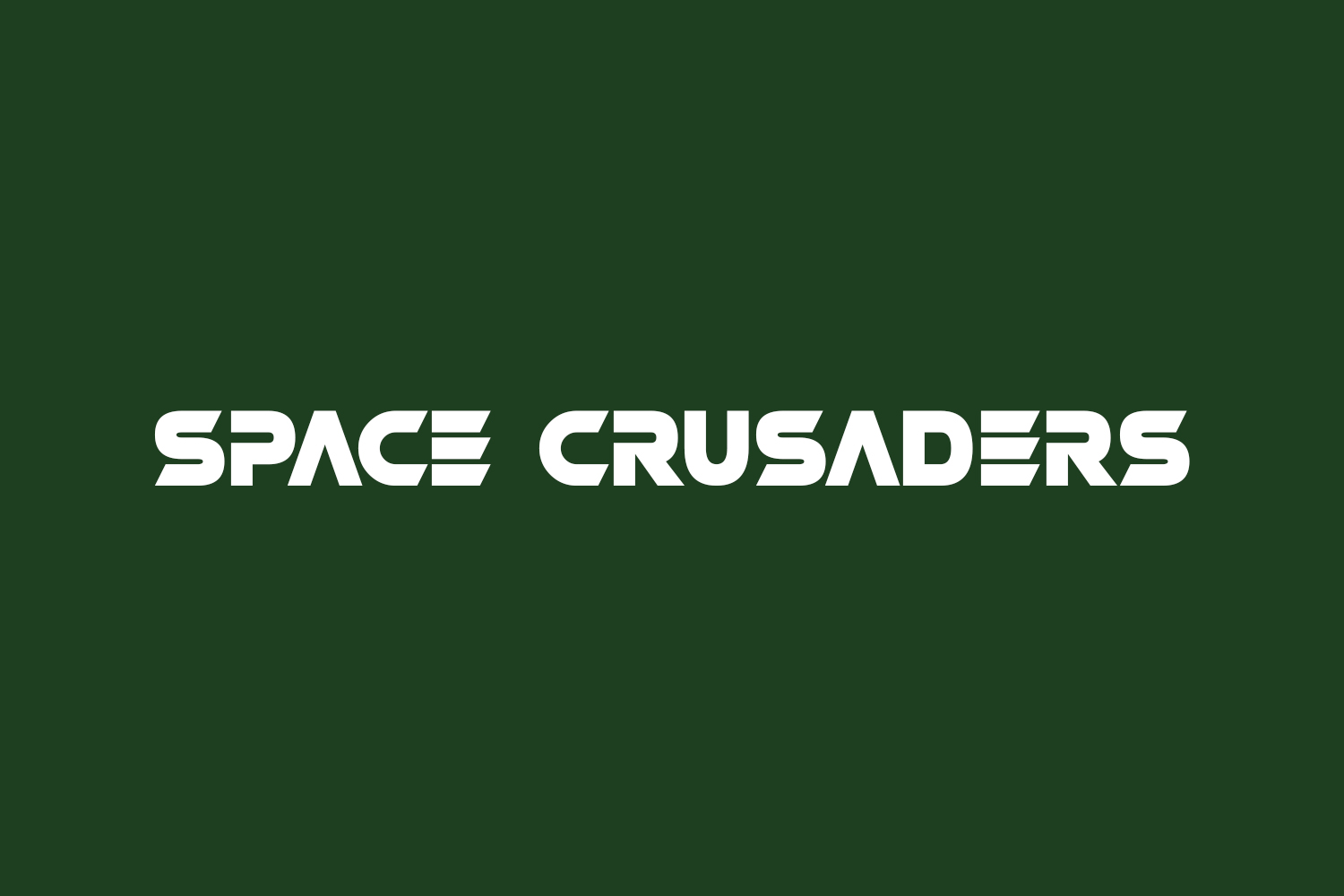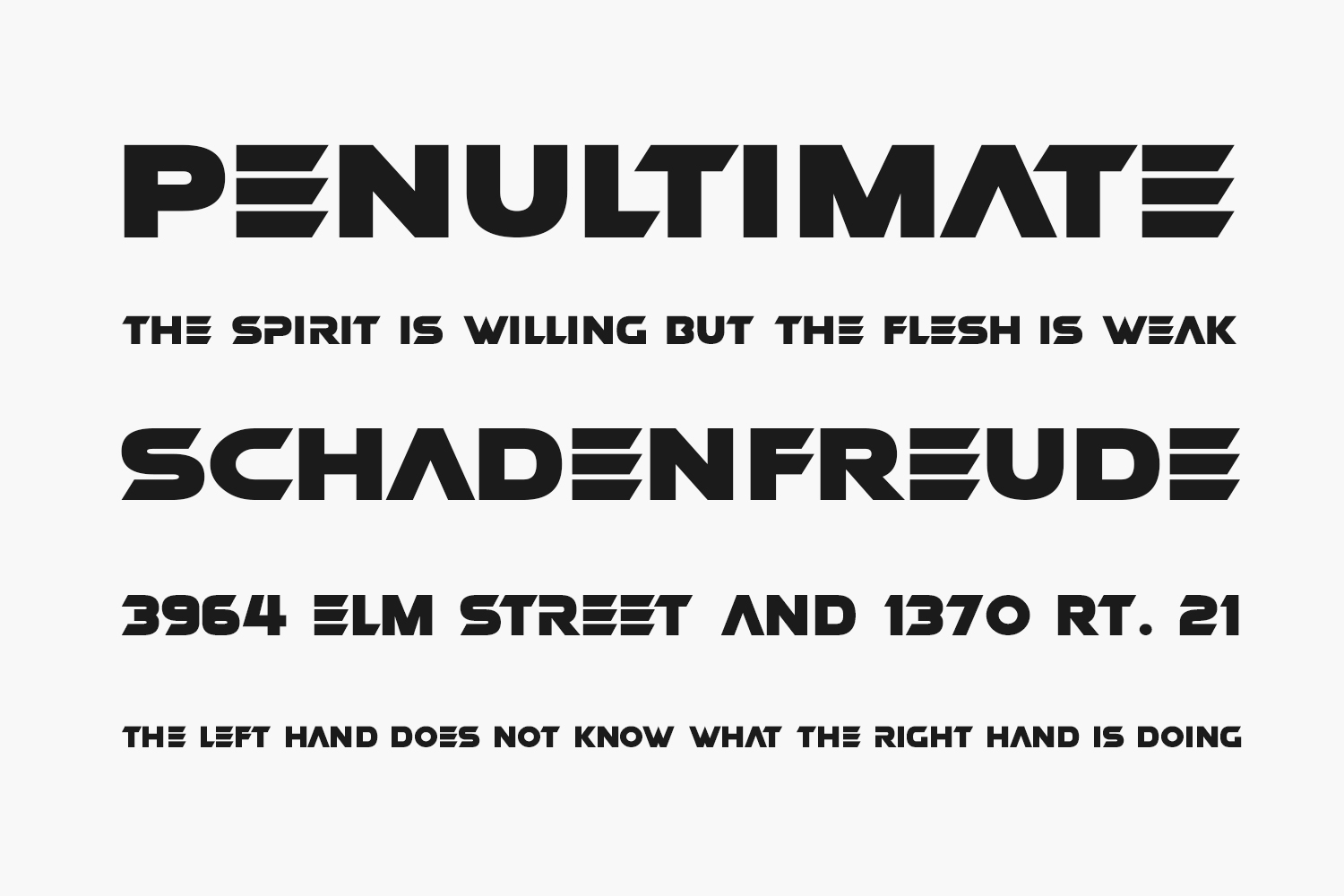
Space Crusaders Free Font Family is an edgy sci-fi font, that combines diagonal slices with smooth curves, in a slick, modern style. Perfect for alien encounters, high-tech themes, and general sci-fi use.